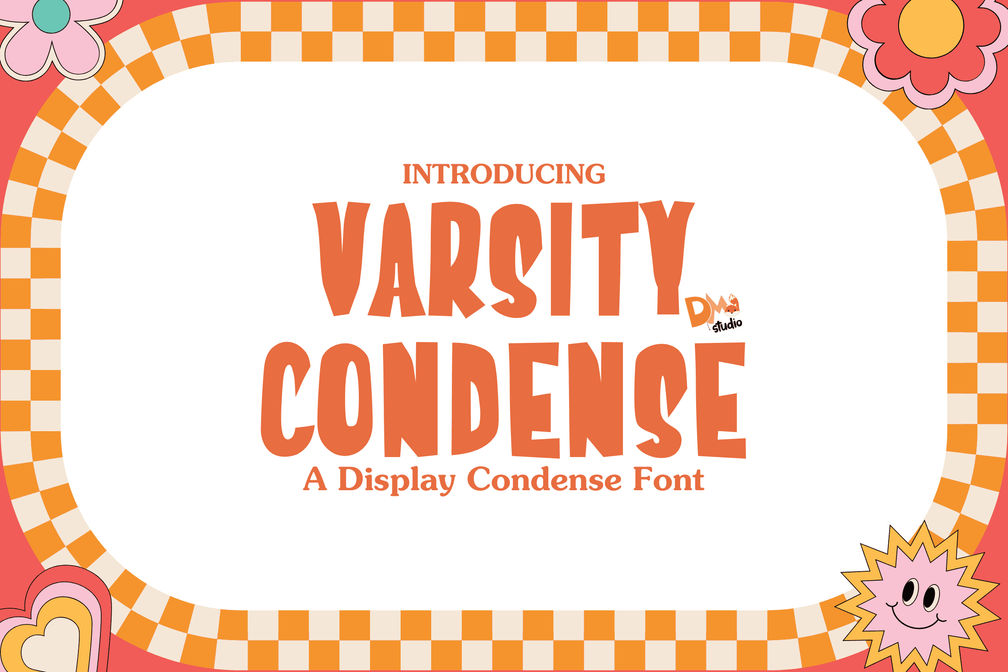
Varsity Condense
Varsity Condense – Modern & Bold Condensed Font
Varsity Condense is a sleek and stylish condensed font designed for modern and bold typography. With its tall, narrow letterforms and clean aesthetic, this typeface is perfect for branding, editorial design, headlines, posters, packaging, and contemporary projects that need a strong yet space-efficient look. Its versatile design makes it suitable for both minimalistic and eye-catching compositions.
• Modern Condensed Style: A bold yet space-saving typeface with sleek, structured letterforms.
• Perfect for Elegant & Contemporary Designs: Ideal for logos, editorial layouts, signage, and branding.
• Versatile & Eye-Catching: Works great for headlines, advertisements, and stylish display designs.